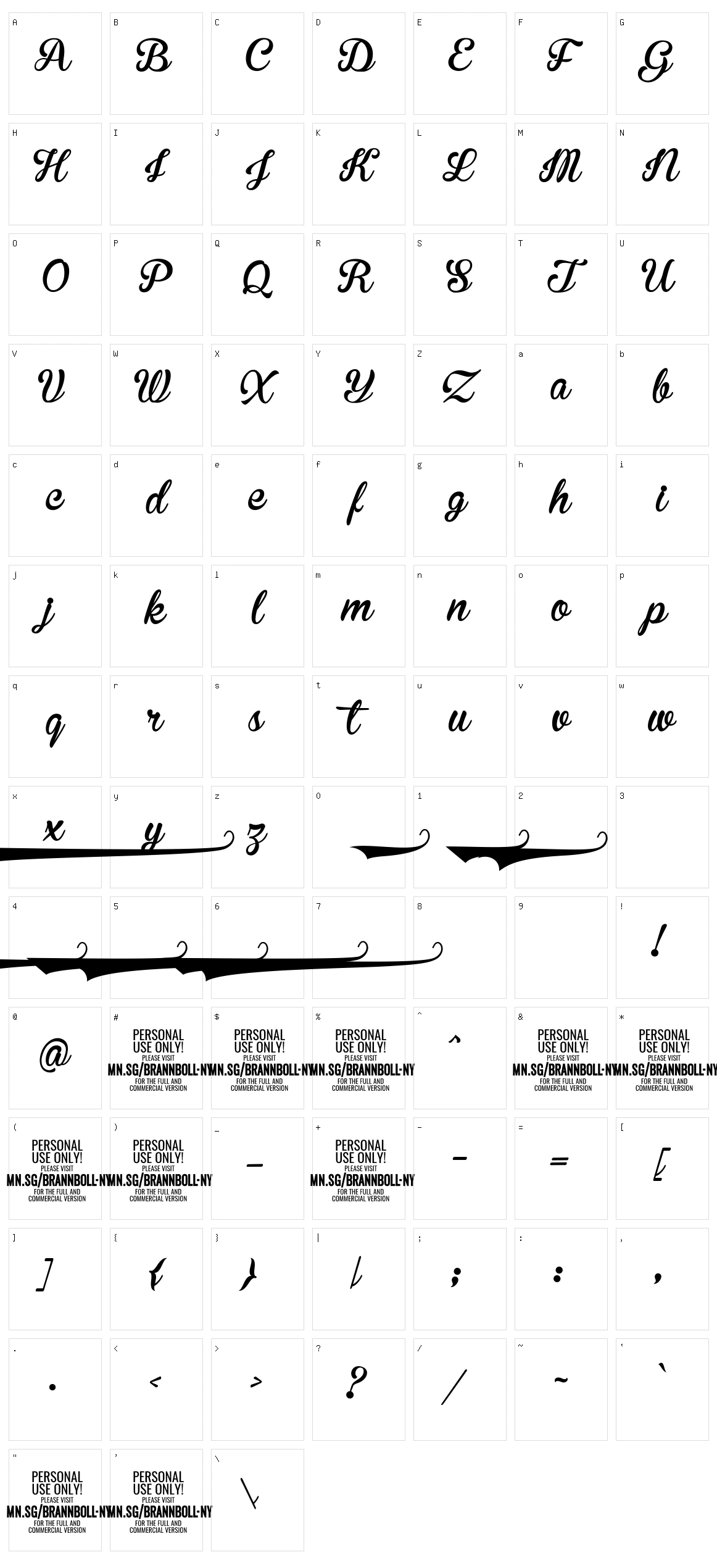
Brannboll Connect is a script sport typeface.
The baseball-style lettering was drawn by Måns Grebäck in 2020.
It is a specialist connected typeface:
Each character and all their parts are physically connected, making it a
lettering perfect for laser cutting, signs, jewelry, woodworking and embroidery.
It also comes with the additional, decorative style Brannboll Connect Swash,
which contains ten cool swashes to give the graphic extra expression.
It has a very extensive lingual support, covering all European Latin scripts.
The font contains all characters you'll ever need, including all punctuation
and numbers.